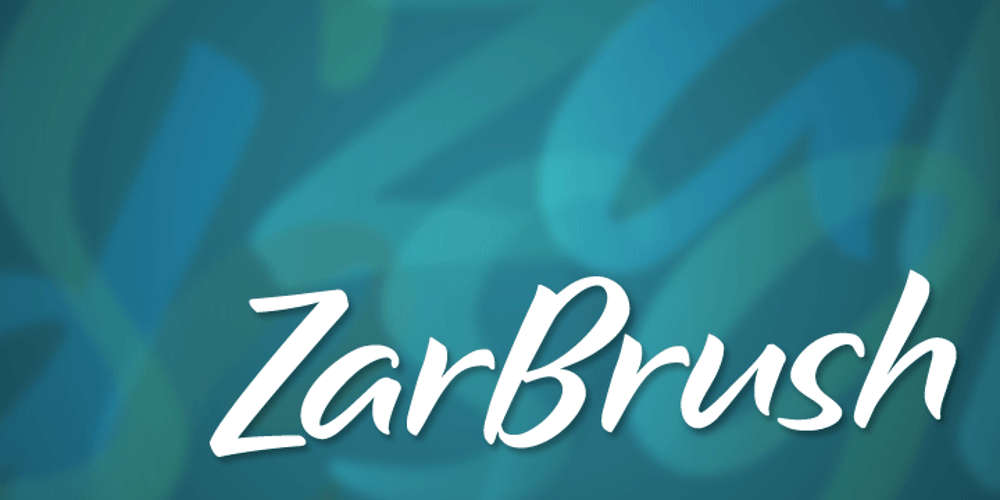
Zar Brush Font Family was designed by Randy Szarzynski and published by SzarDesign. Zar Brush contains 1 styles and family package options. ZarHand began as my “speedball” showcard lettering font, used when the boss brought in a pile of urgent work at the end of the day. We would get out our “4 o’clock brushes” hoping to finish at a reasonable hour.